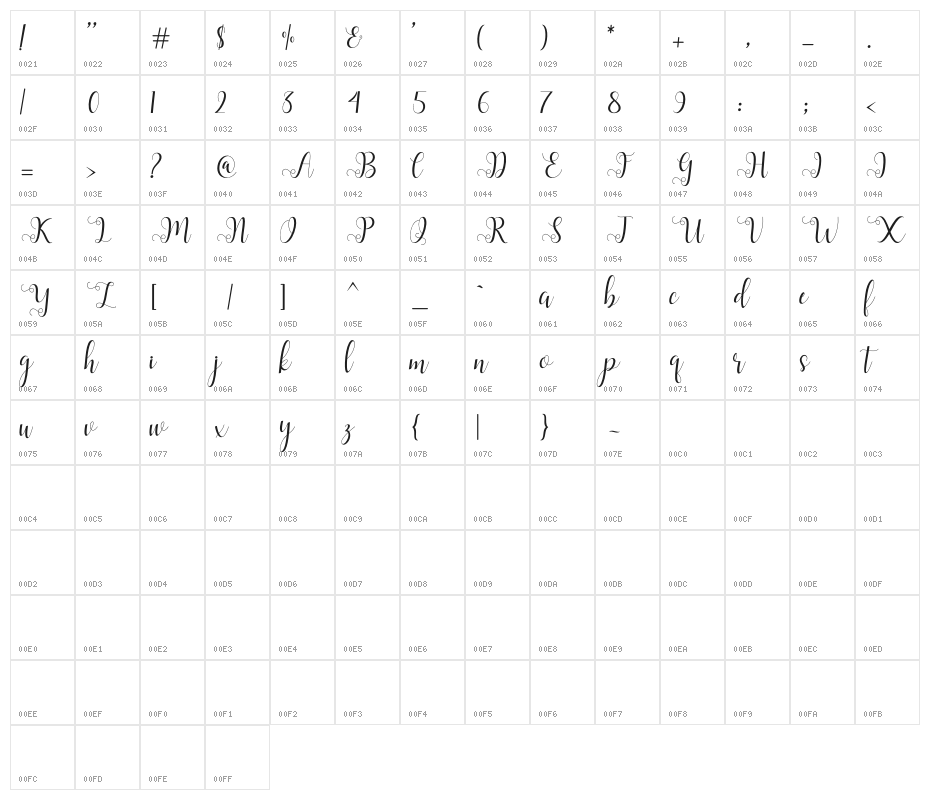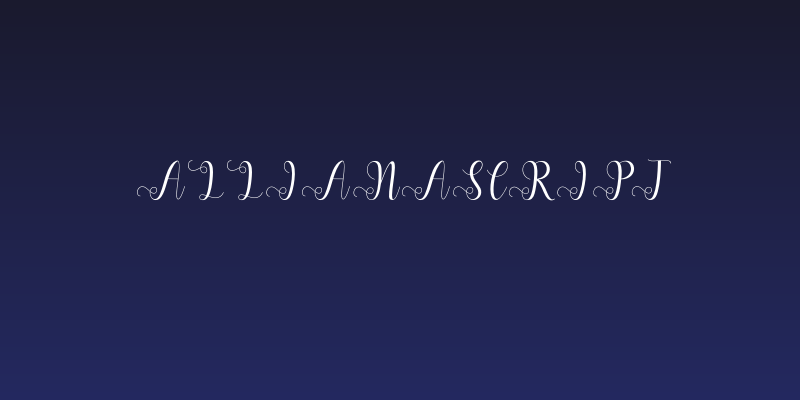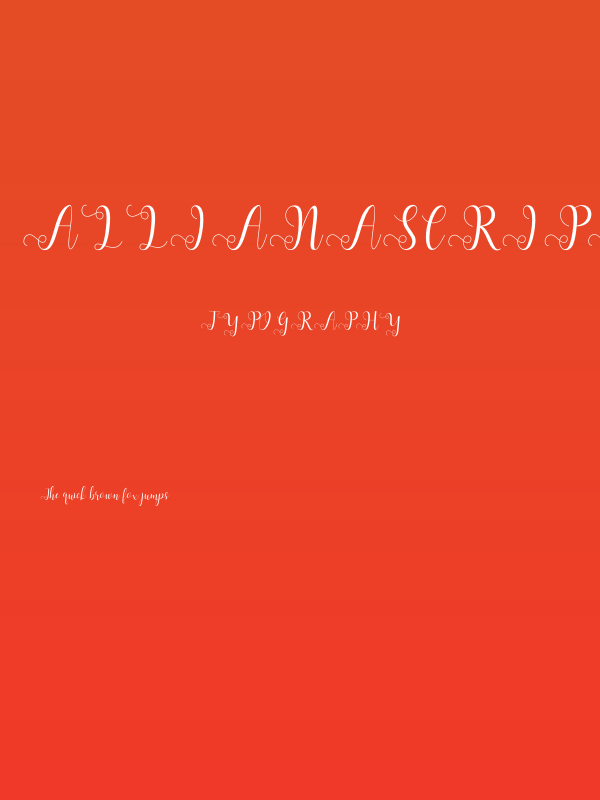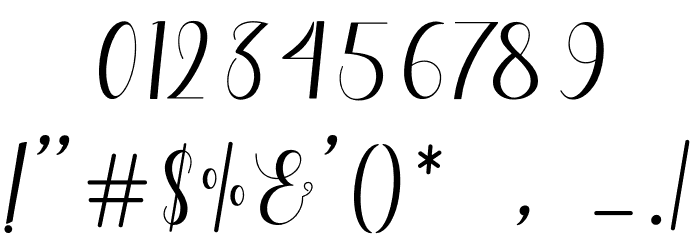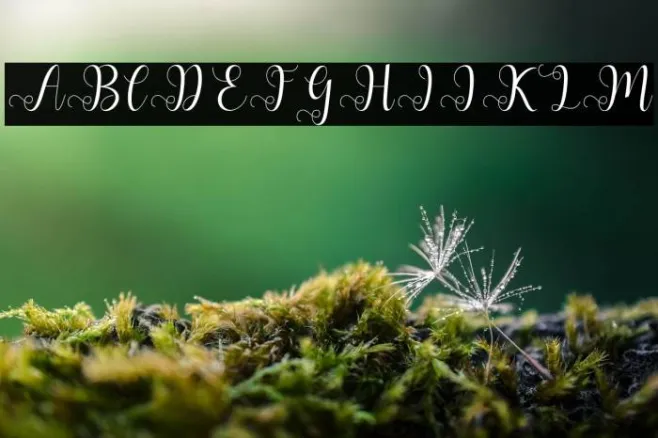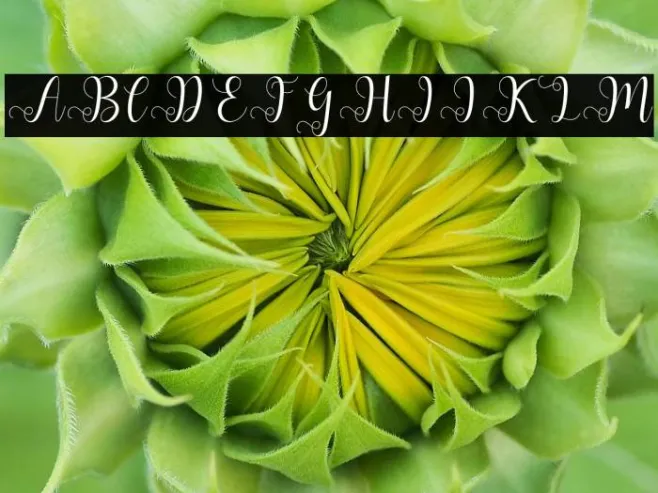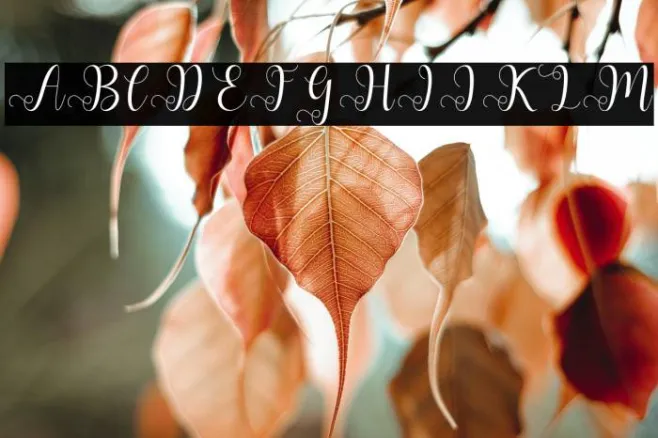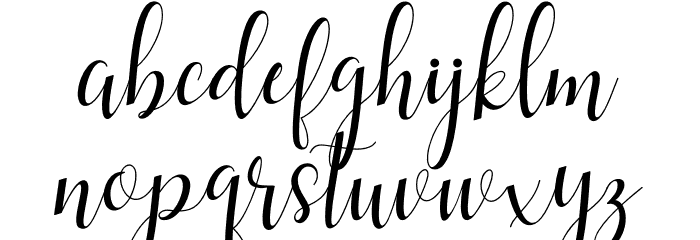
AllianaScript Font
AllianaScript Description
This elegant script font features flowing, interconnected letters with ornate swashes and flourishes, giving it a sophisticated and artistic appearance. The uppercase letters are particularly decorative, with intricate loops and curves that add a touch of luxury and refinement. The lowercase letters maintain a smooth, cursive style that complements the uppercase, creating a harmonious and fluid look. The numerals are stylish and consistent with the overall script theme, while the special characters are designed to match the font's decorative nature. This font exudes a sense of elegance and charm, making it ideal for formal and creative applications.